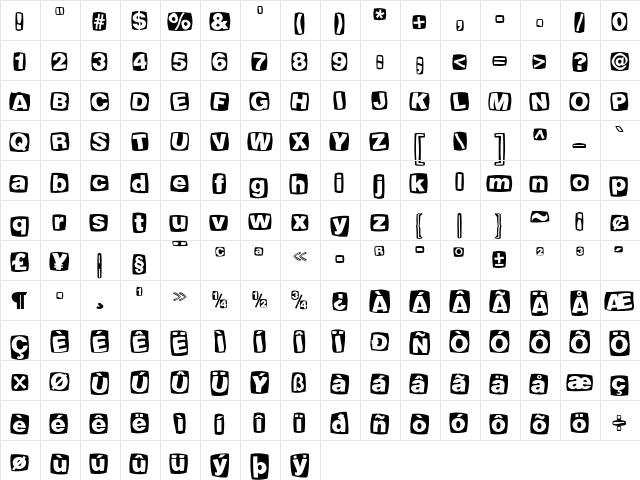
RotoExtraLarge Regular
Design Context for RotoExtraLarge Typeface
RotoExtraLarge is a composed and adaptable typeface that performs quietly and consistently across a wide range of design contexts.